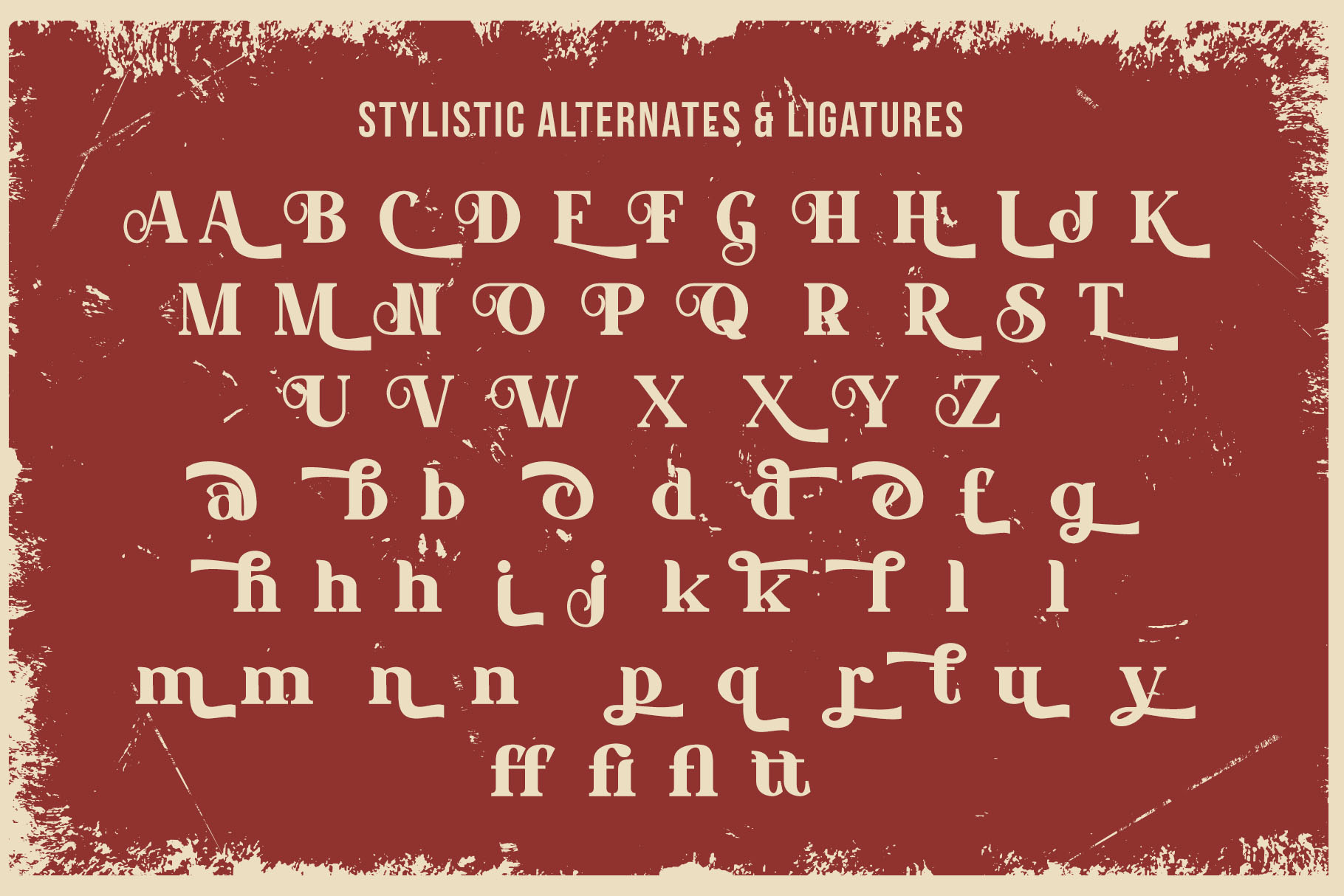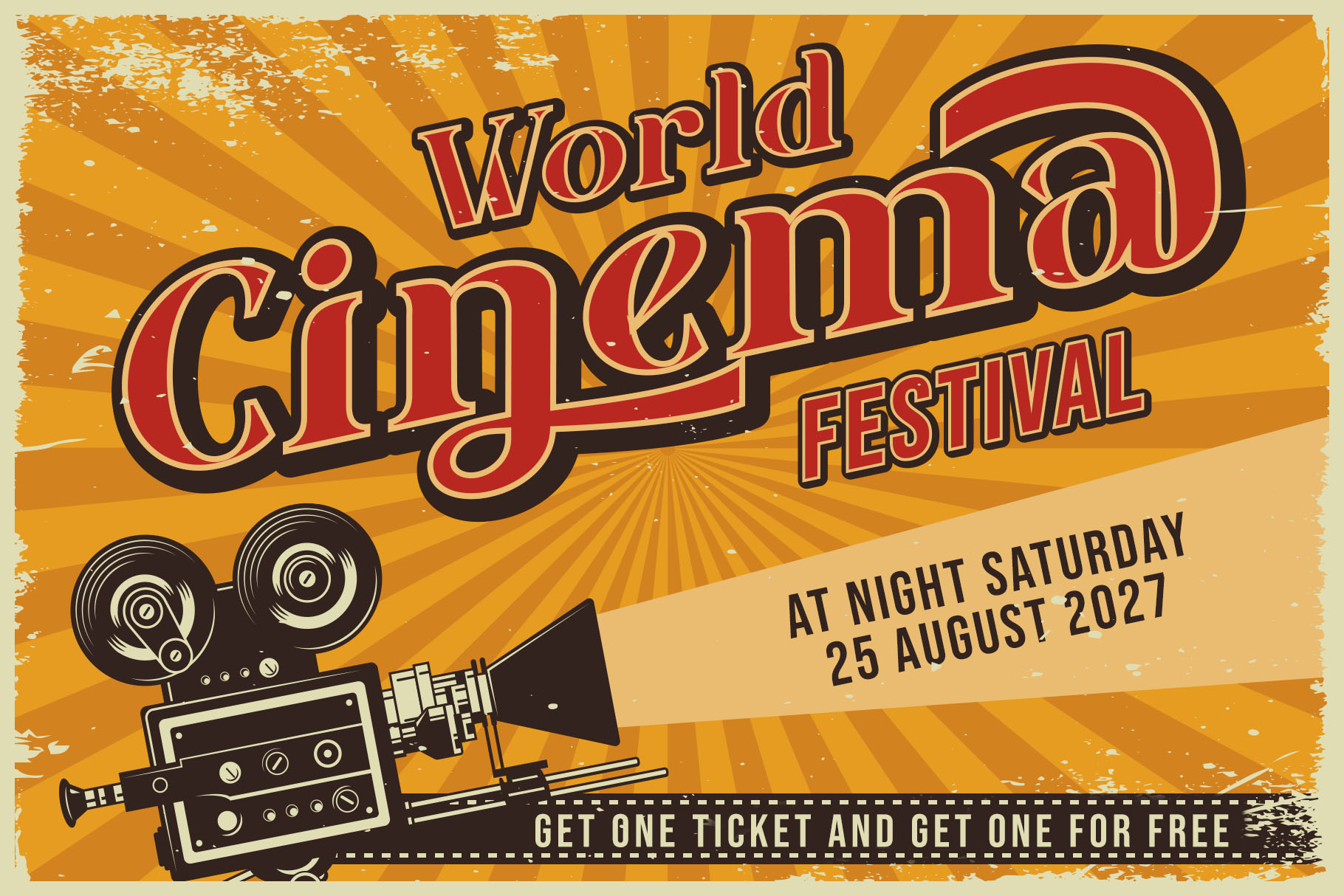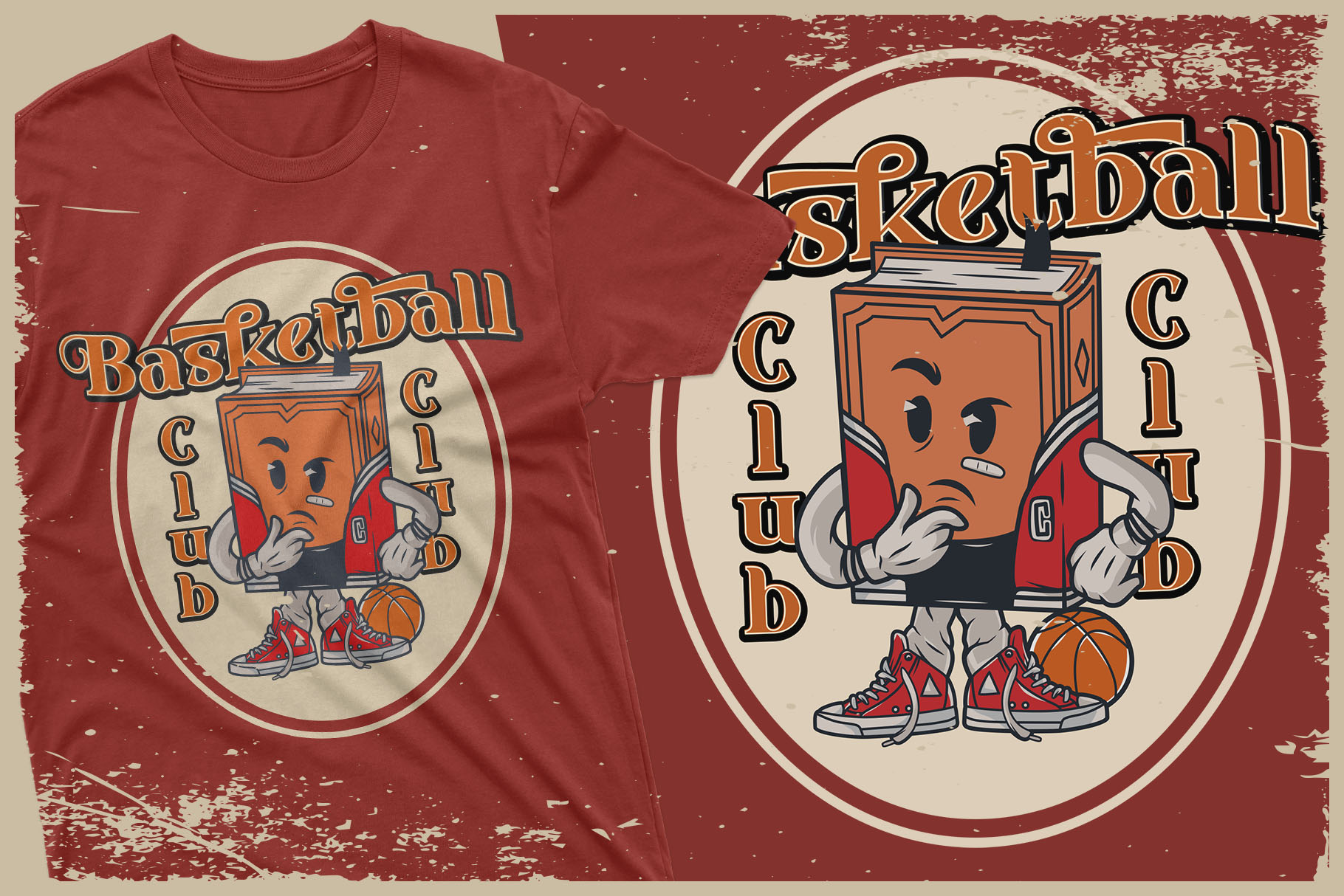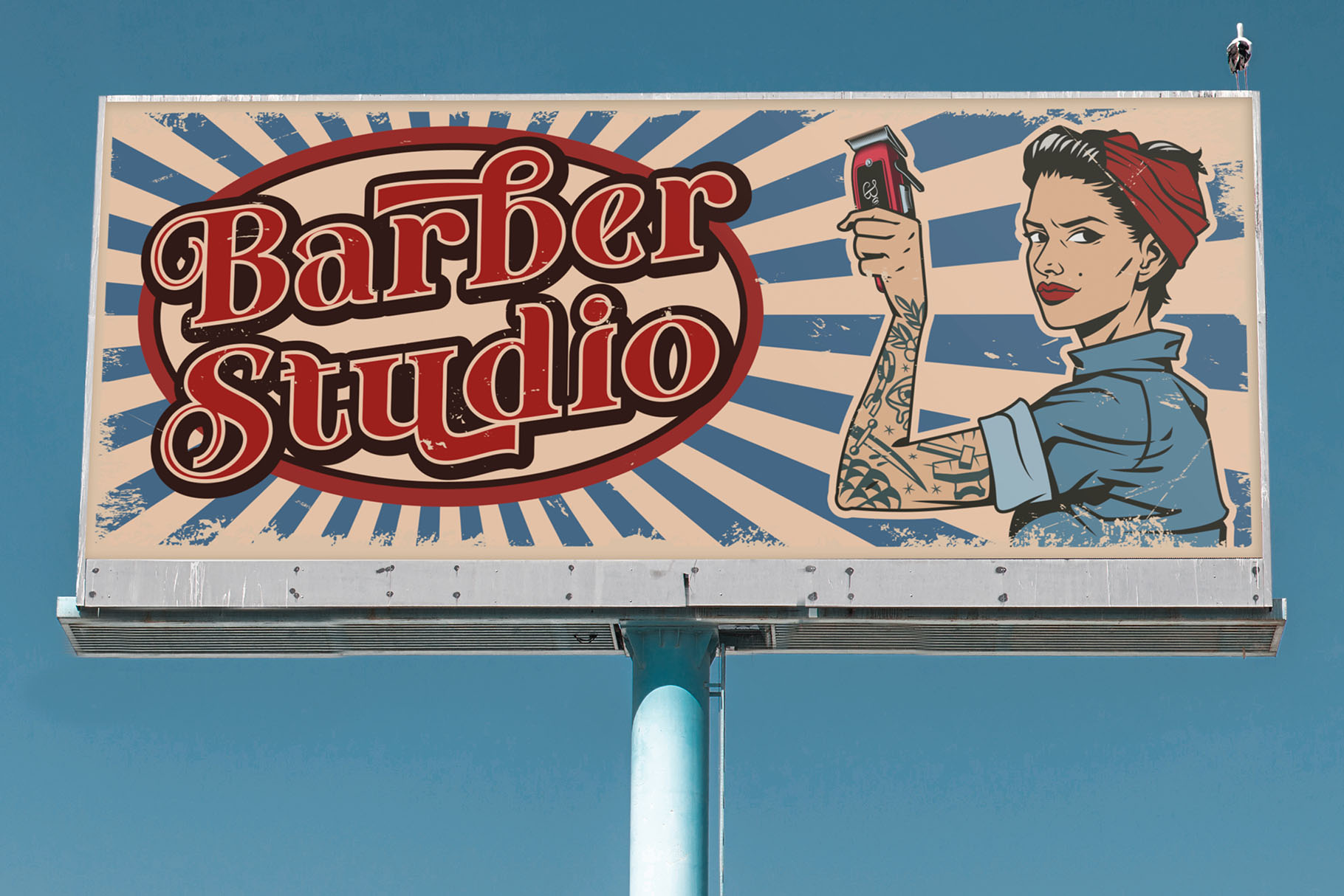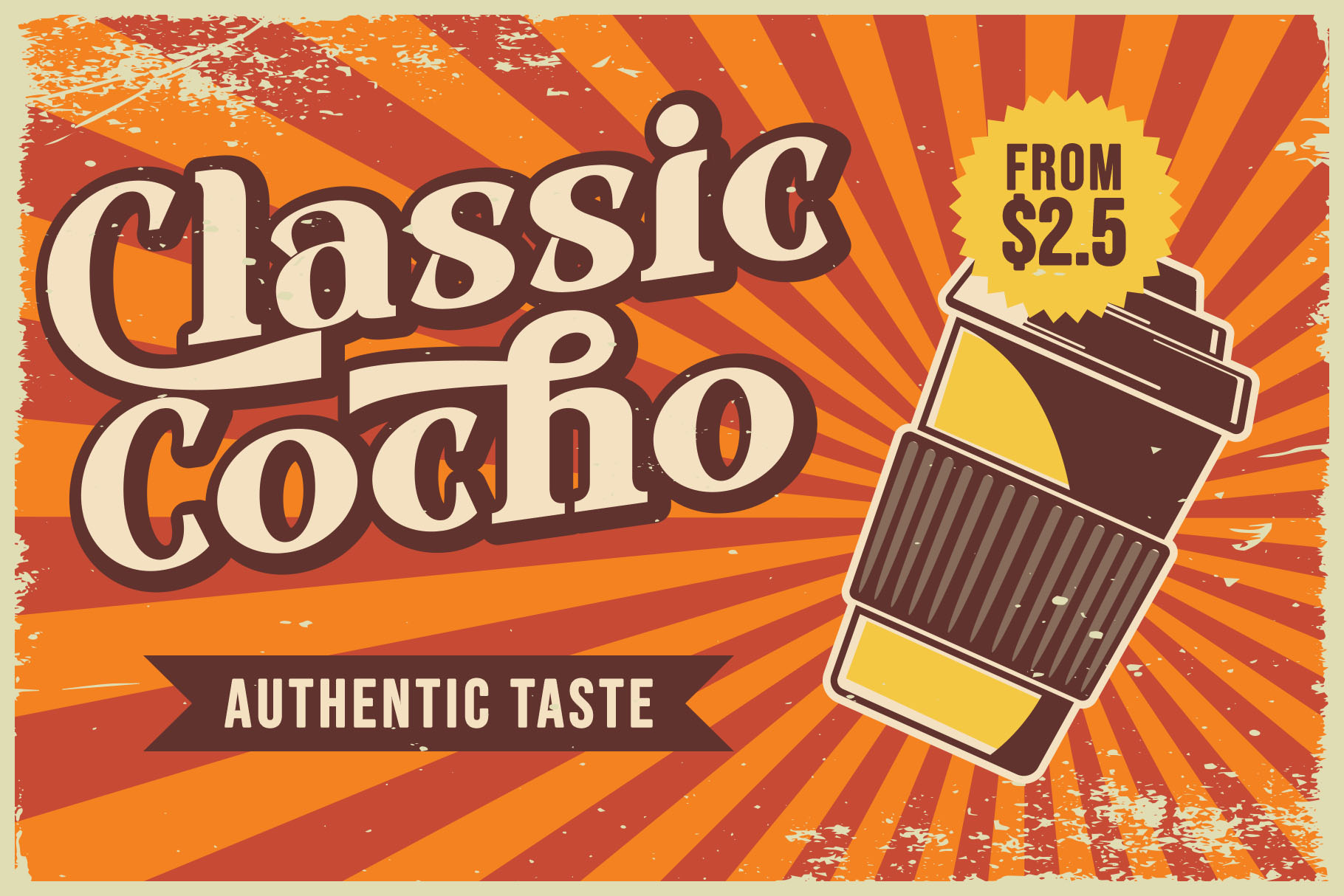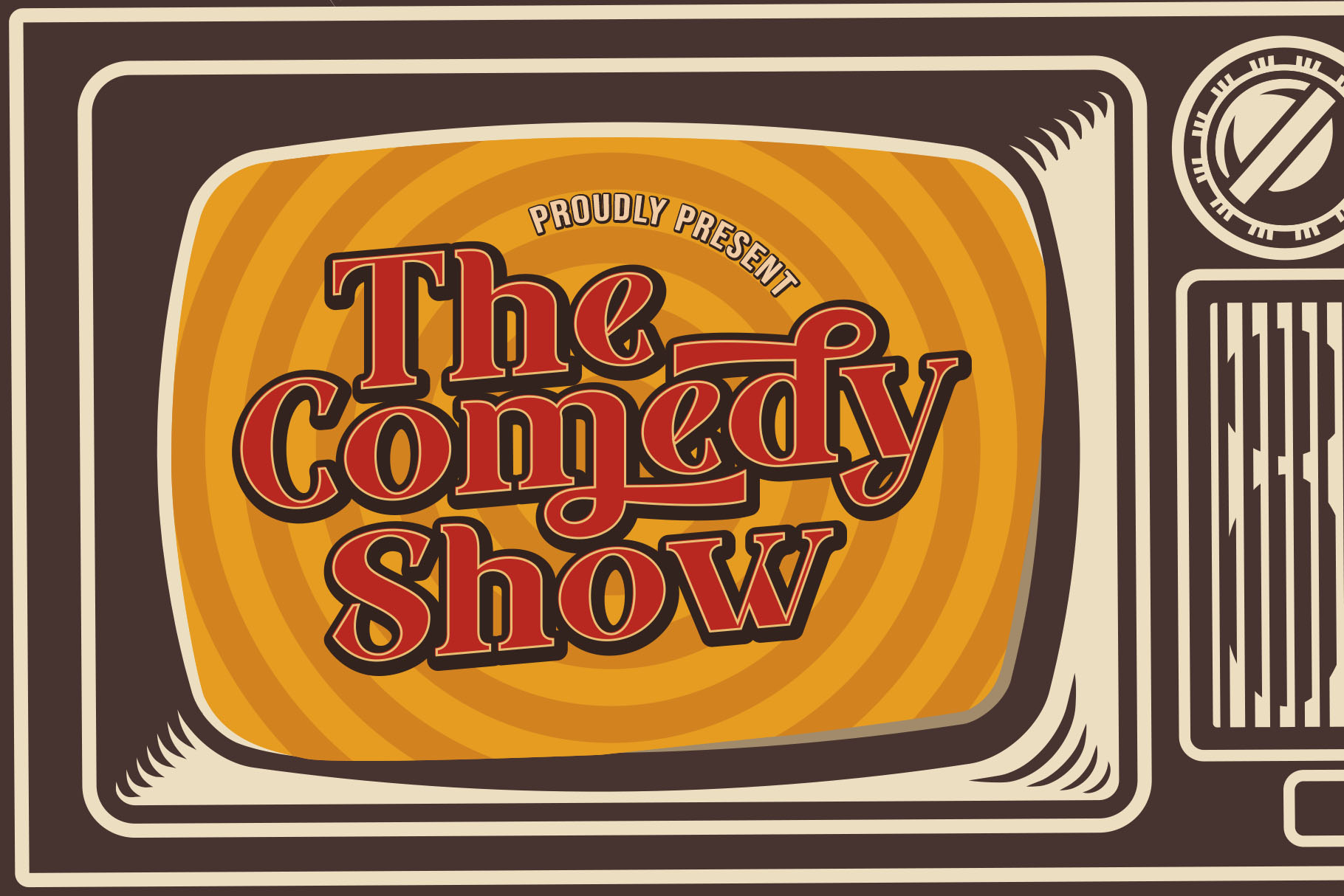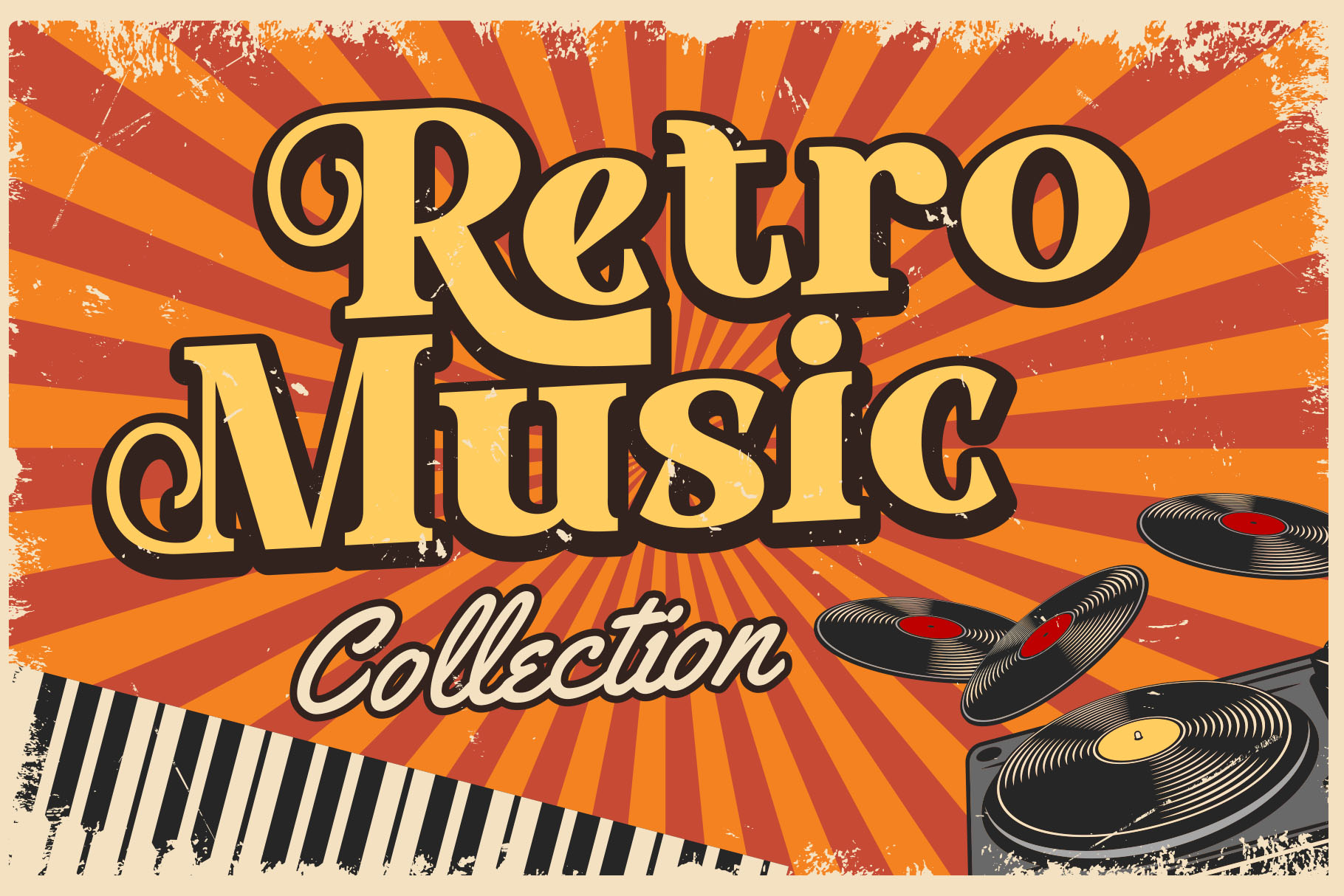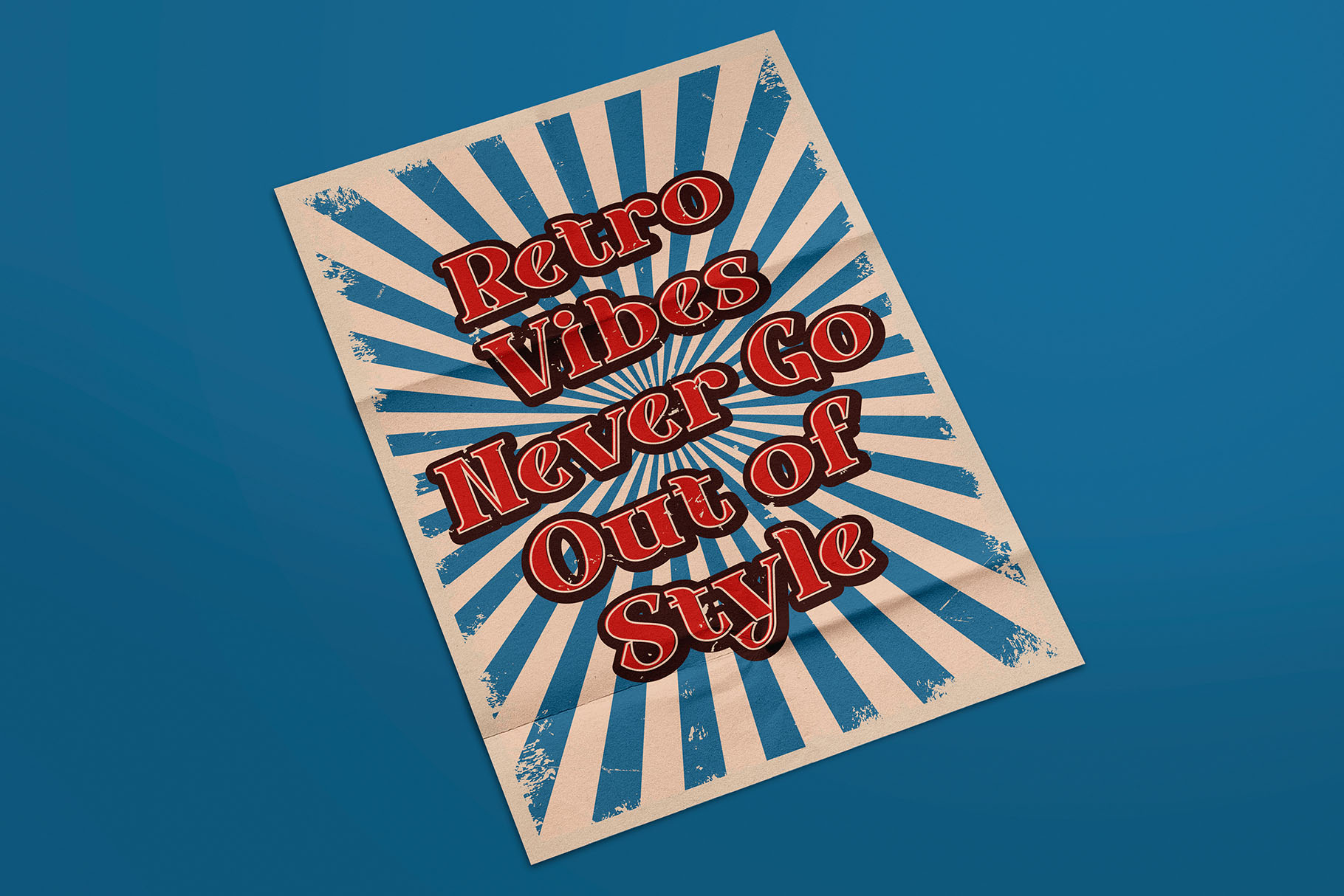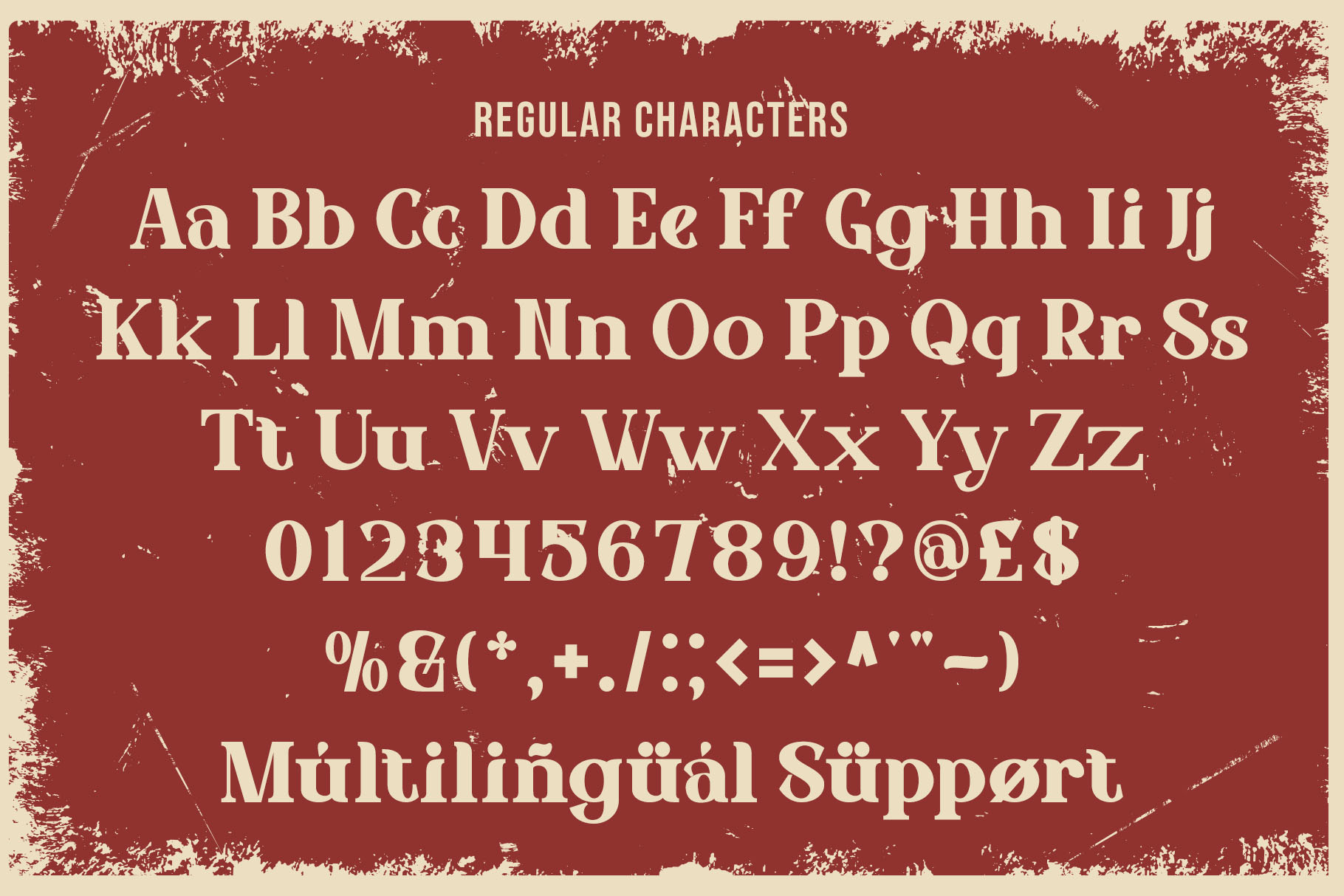
Sangkar Retro Bold
About Sangkar Retro Bold
Sangkar is a retro bold font that exudes a classic vintage vibe, perfect for designs aiming to evoke a nostalgic feel. Its bold, dynamic letters feature decorative elements and stylistic alternates, adding character and uniqueness to each word. With a rich red hue and strong black outline, this font is ideal for posters, label designs, or any project that needs a retro aesthetic and eye-catching appeal.
Key Features:
• Stylistic Alternates: Offers alternative characters to enhance visual appeal.
• Vintage Feel: Includes subtle grunge textures to highlight an aged, antique look.
• Perfect for Design Projects: Suitable for posters, invitations, logos, or any design aiming for a bold retro look.
This font is an excellent choice for projects looking to capture a nostalgic, classic atmosphere with a modern, bold touch.
• Ligature & Stylistic alternate